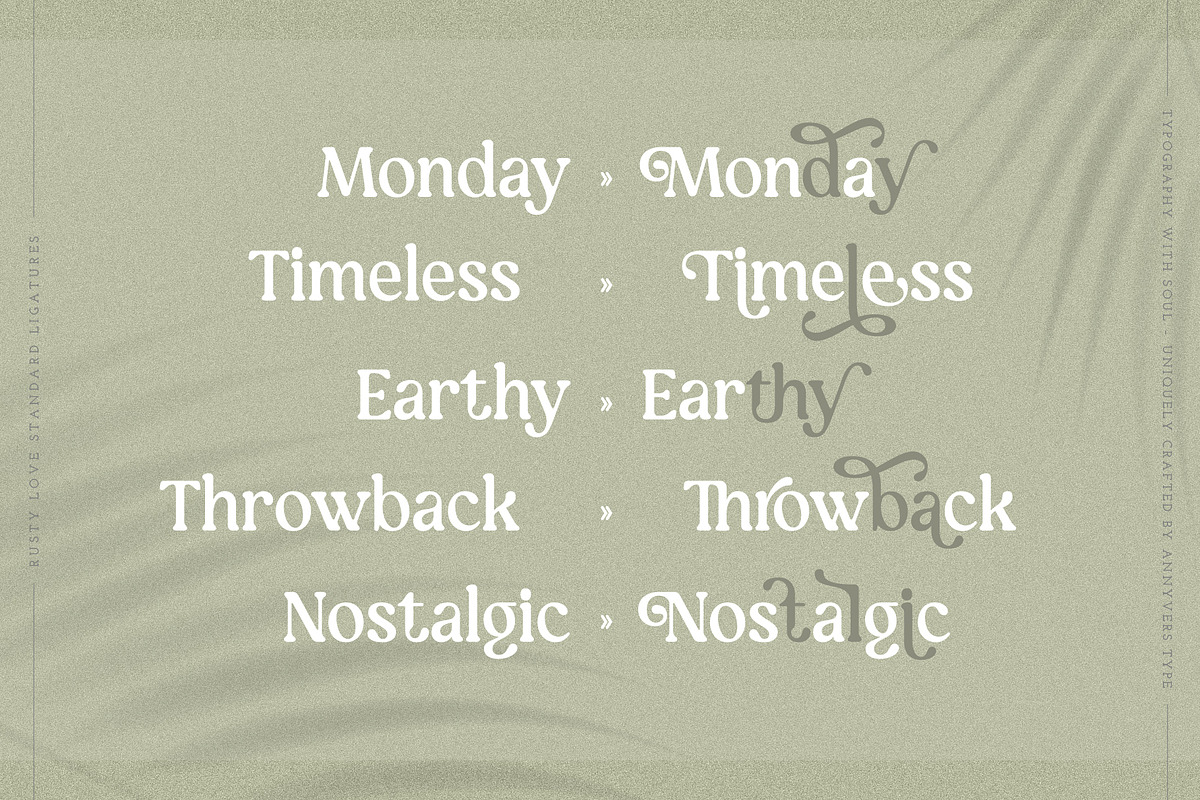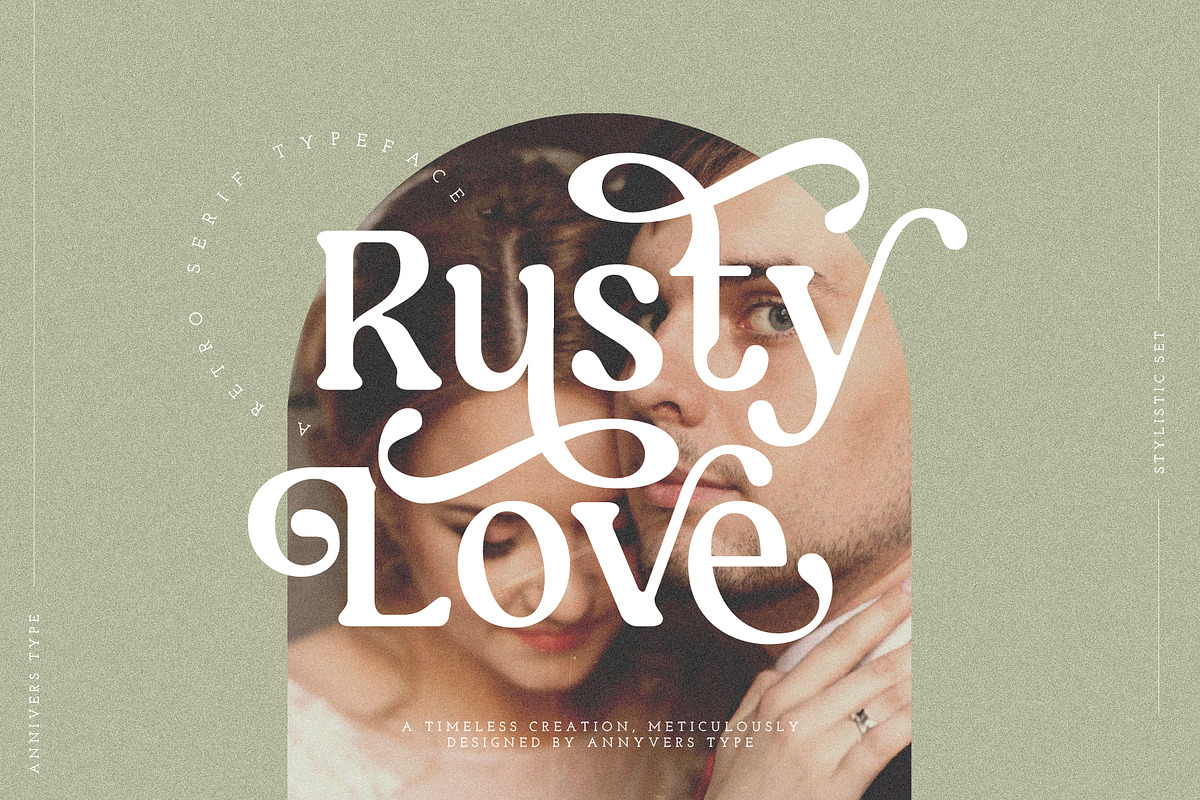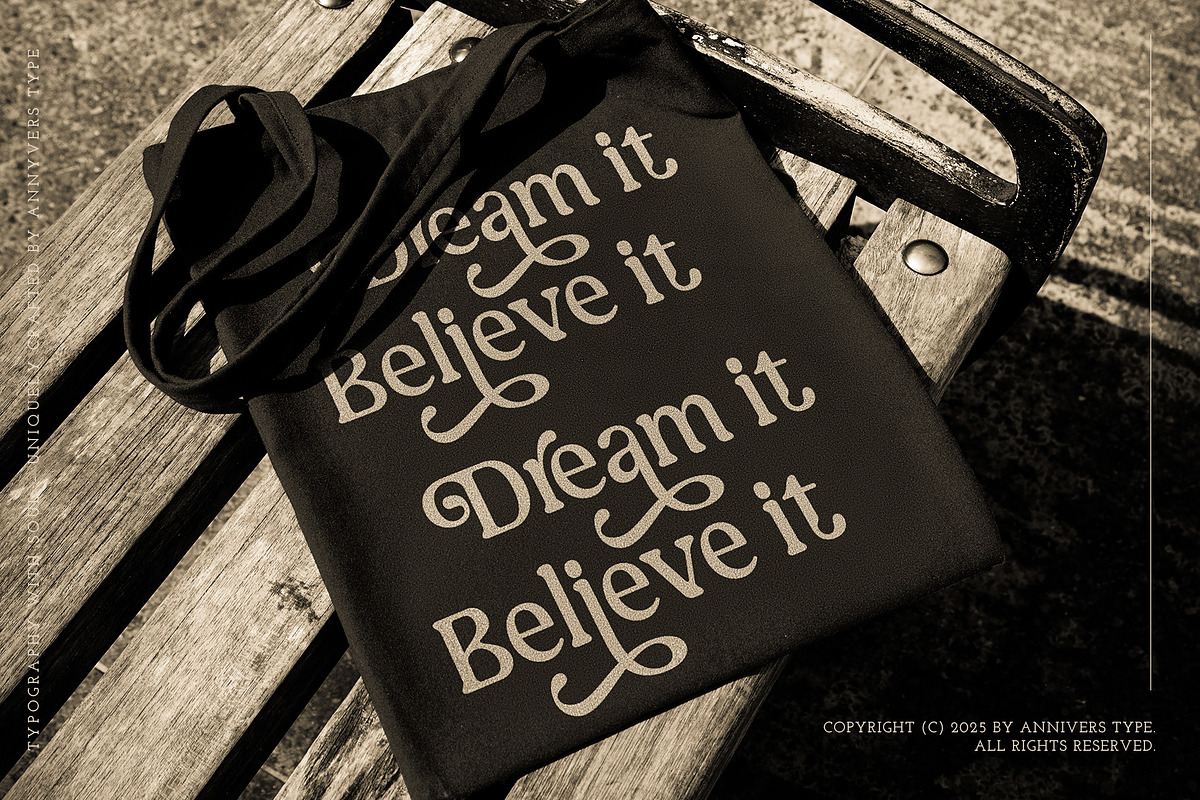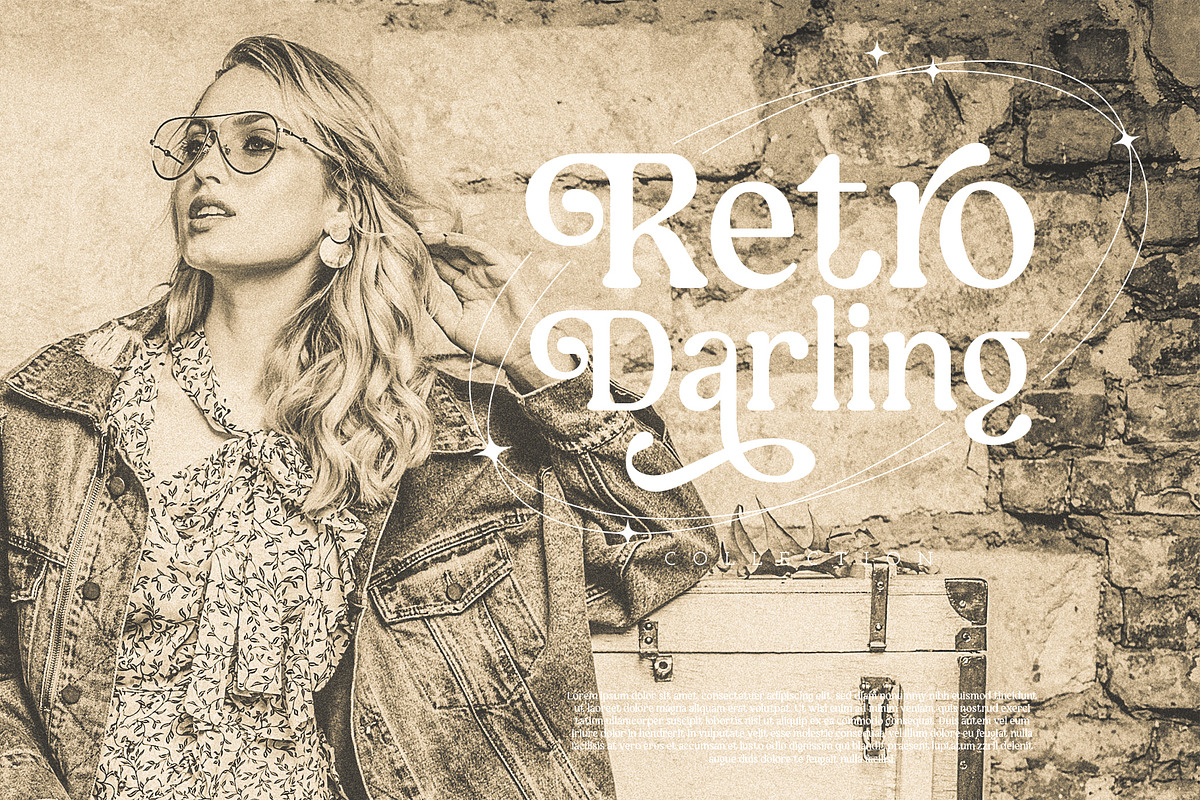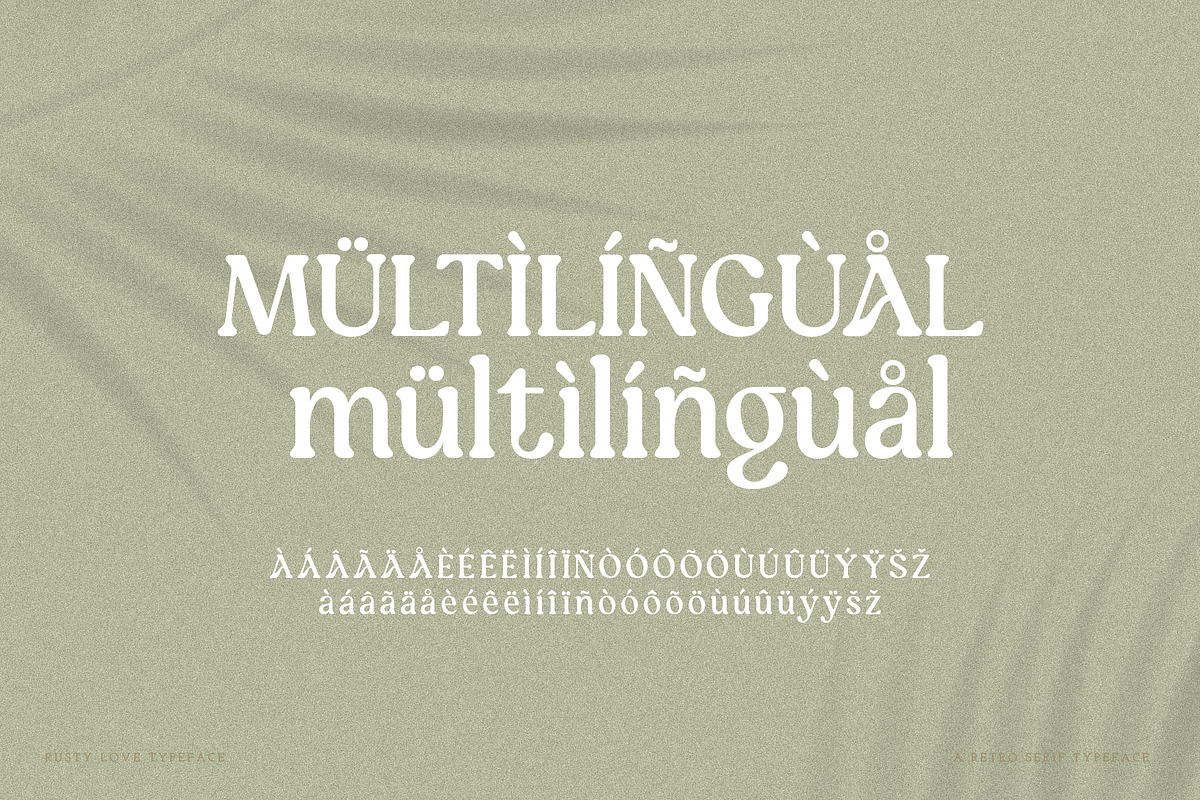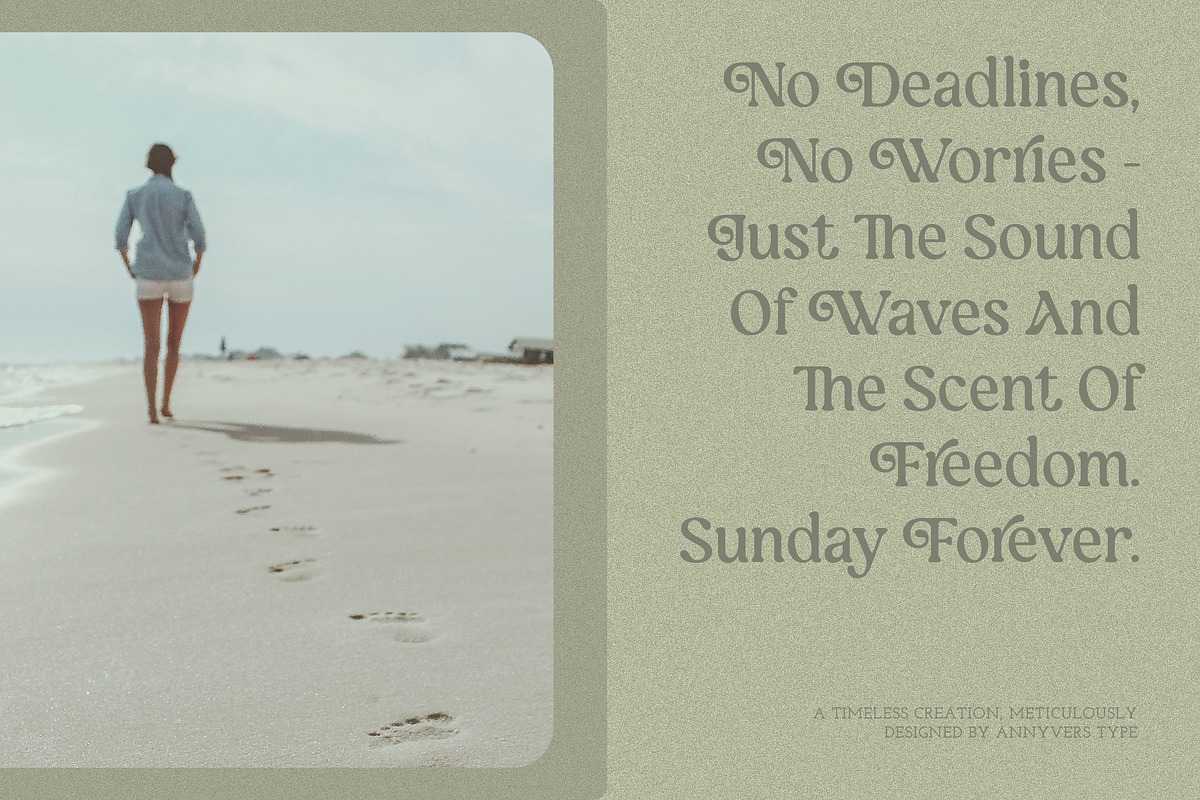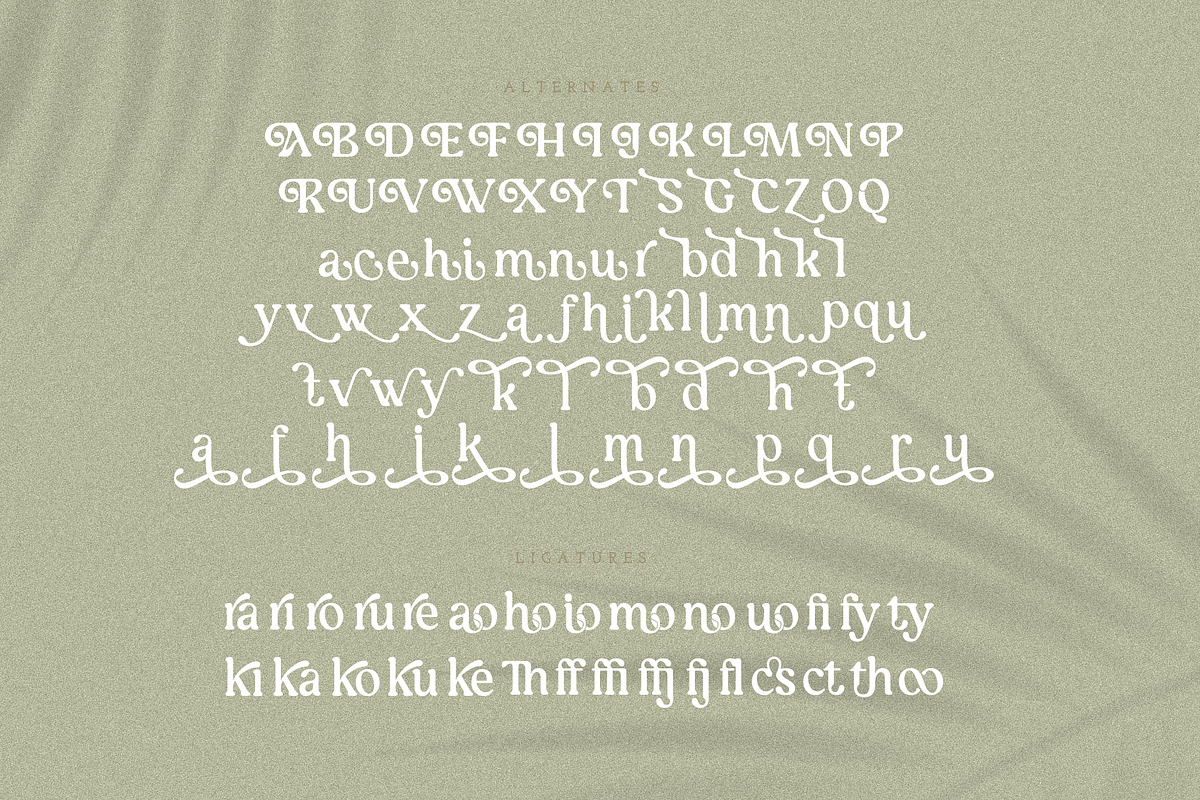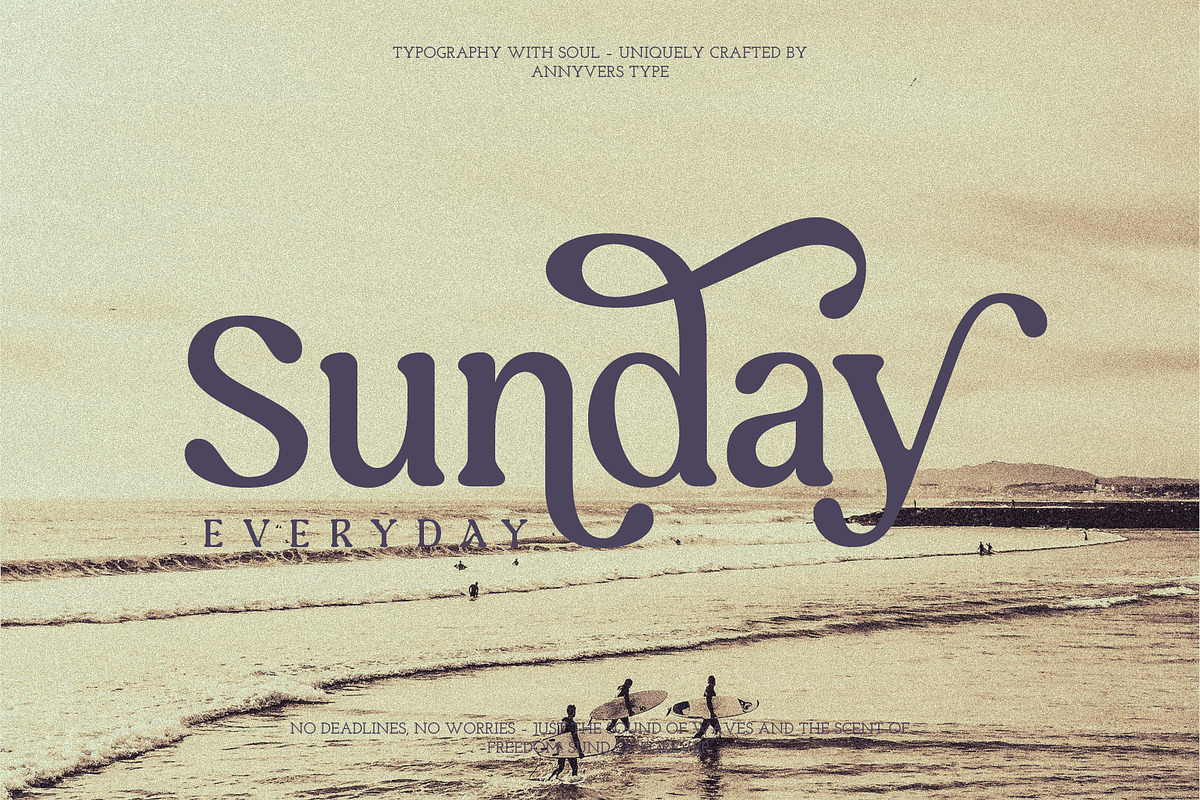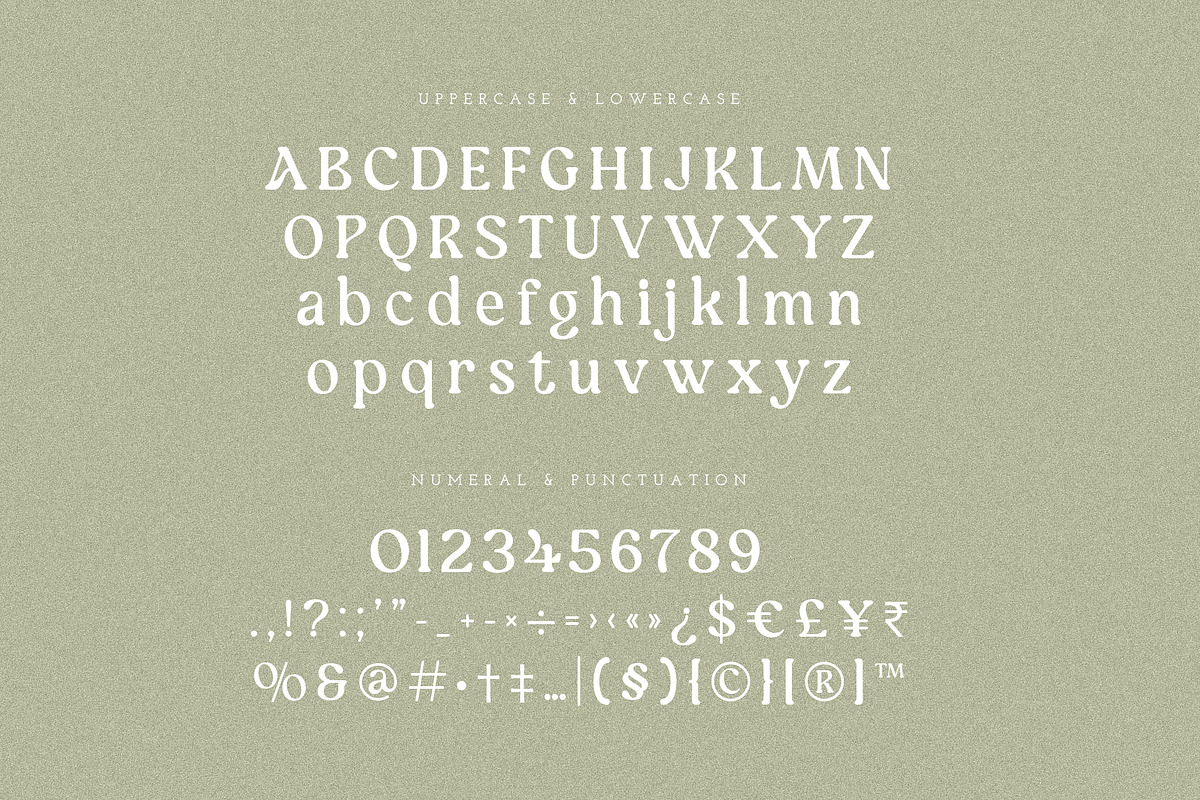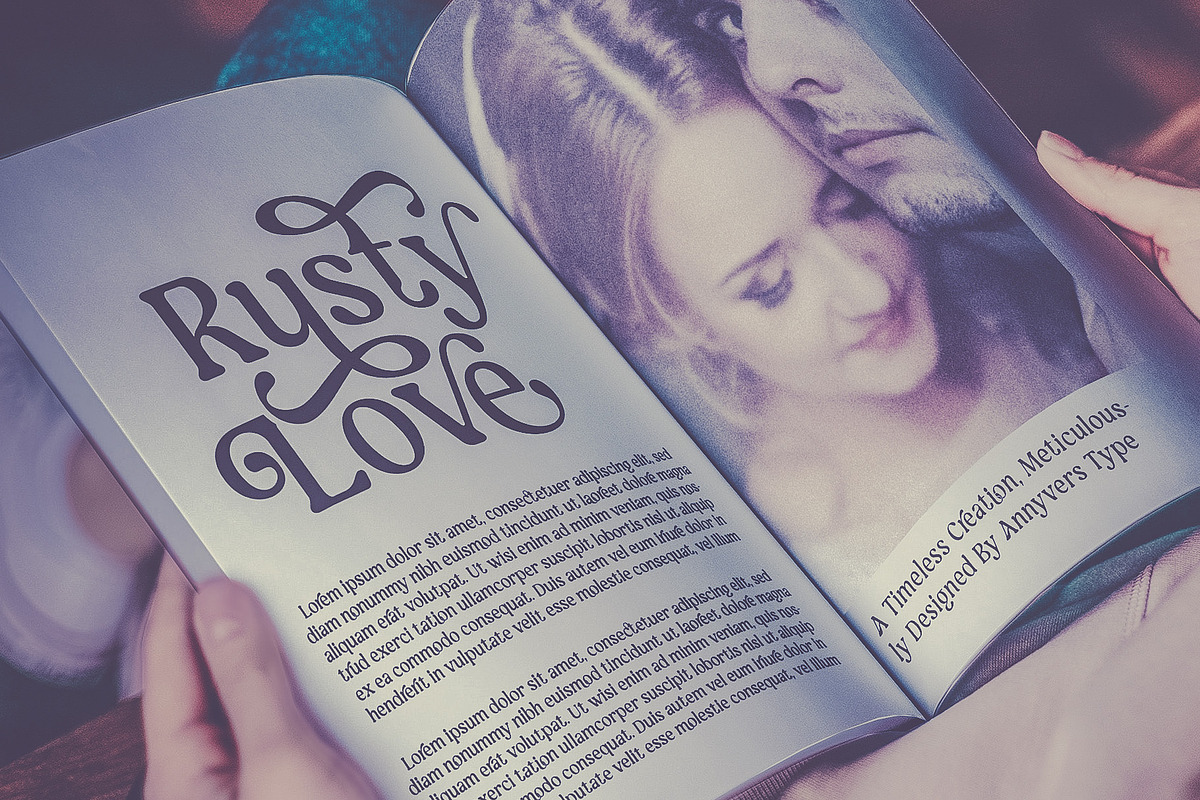
Rusty Love - Retro Vintage Charm
Rusty Love - Retro Serif with a Vintage Charm!
Step into the golden age of typography with Rusty Love - a bold, retro inspired serif that exudes timeless charm! Whether you're crafting an eyecatching logo, a nostalgic poster, or stylish packaging, this typeface brings that perfect vintage meets modern feel to your designs. Why You'll Love It:
- Strong & Stylish - Thick, confident strokes with a touch of retro elegance.
- Versatile Appeal - Perfect for branding, magazines, apparel, and signage.
- Multilingual Support - supports a wide range of European and African languages, covering Romance, Germanic, Nordic, and Bantu languages. This includes English, French, Spanish, German, Italian, Portuguese, Dutch, Swedish, Danish, Norwegian, as well as Swahili and Zulu
- Old School Meets Contemporary - A nostalgic typeface with a modern edge.
Why You'll Love It:
- Strong & Stylish – Thick, confident strokes with a touch of retro elegance.
- Versatile Appeal – Perfect for branding, magazines, apparel, and signage.
- Multilingual Support - supports a wide range of European and African languages, covering Romance, Germanic, Nordic, and Bantu languages. This includes English, French, Spanish, German, Italian, Portuguese, Dutch, Swedish, Danish, Norwegian, as well as Swahili and Zulu
- Old-School Meets Contemporary – A nostalgic typeface with a modern edge.
- Logos & Branding – Give your brand that bold, vintage personality.
- Editorial & Magazines – Stand out with classic yet contemporary typography.
- Luxury Packaging – Elevate product labels and high-end packaging.
- Posters & Signage – Retro movie vibes? We got you!
Whether you're going for a classy throwback look or bold modern branding, Rusty Love has you covered. So, ready to add a touch of retro magic to your designs? ✨